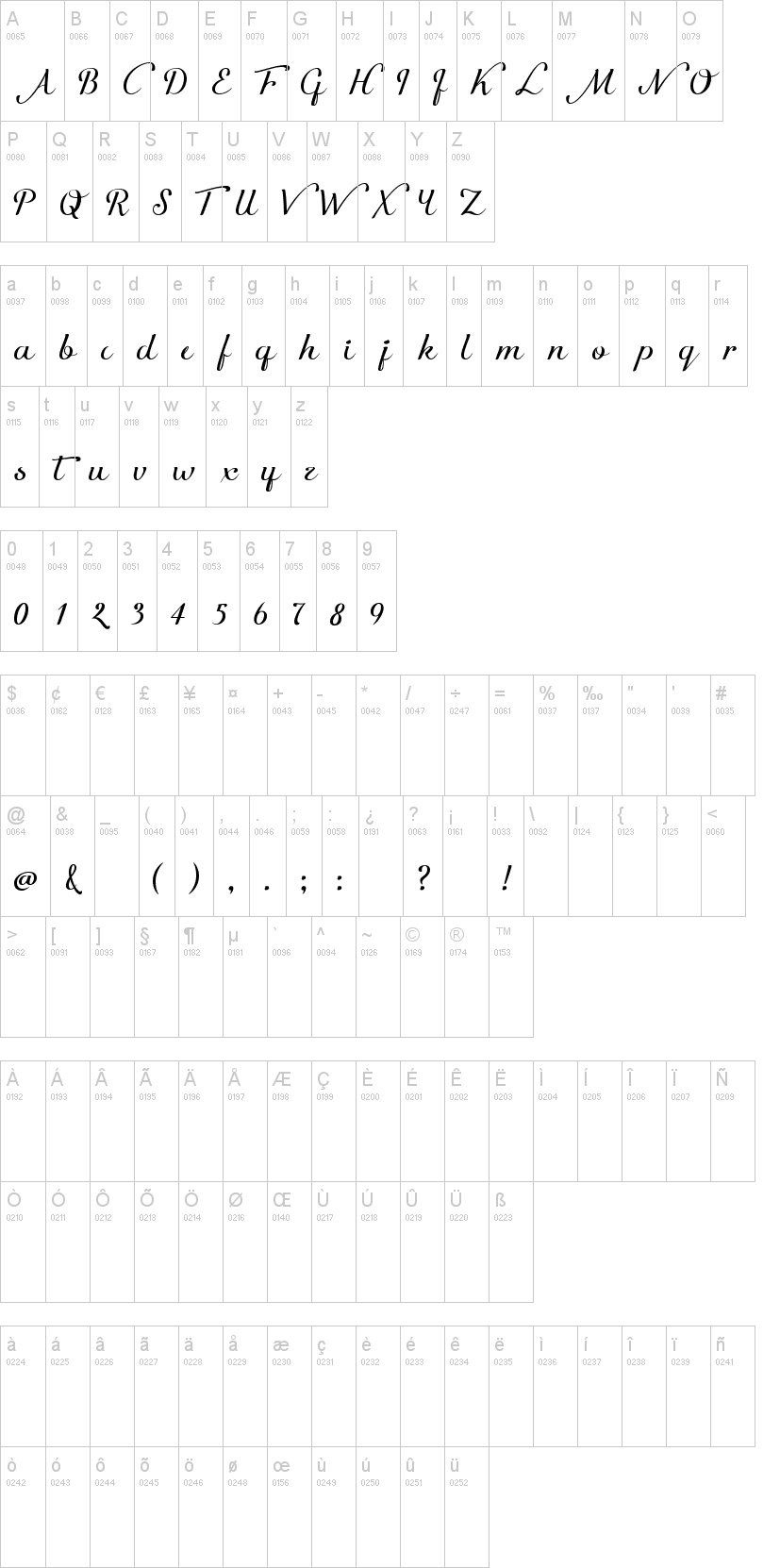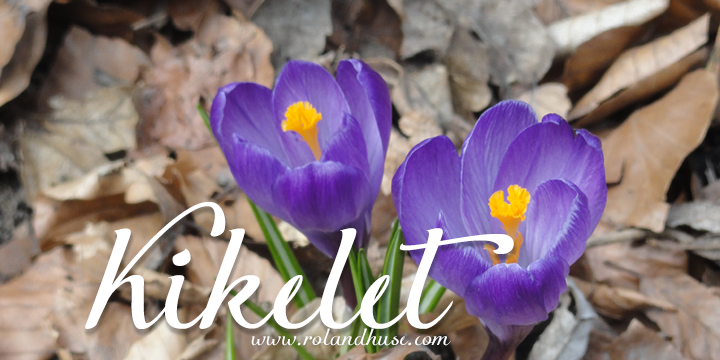
Note of the authorKIKELET is a script font inspired by spring (kikelet means spring in Hungarian) I was experimenting with unusual style of forming the letters "y" "p" "s" "z" etc. Well, you'll see! There are two ligaturtes to replace double"tt" and "tl" for readability.